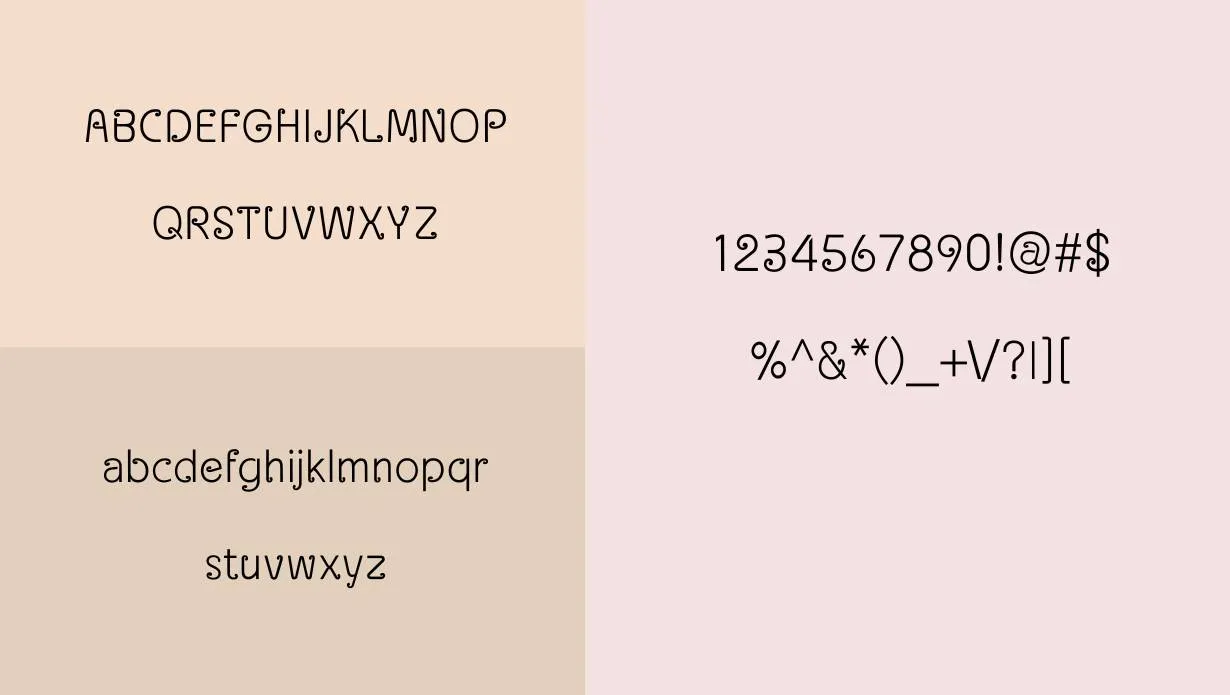
The Antara Aksara Sunda font is more than just letters; it’s a cultural connection. Perfect for projects celebrating Sundanese heritage or events in the region, this font brings a touch of tradition and local identity to your words.
Imagine using it for a cultural festival poster or educational materials about the Sundanese languageāthe Antara Aksara Sunda font helps your words speak the language of tradition and community.